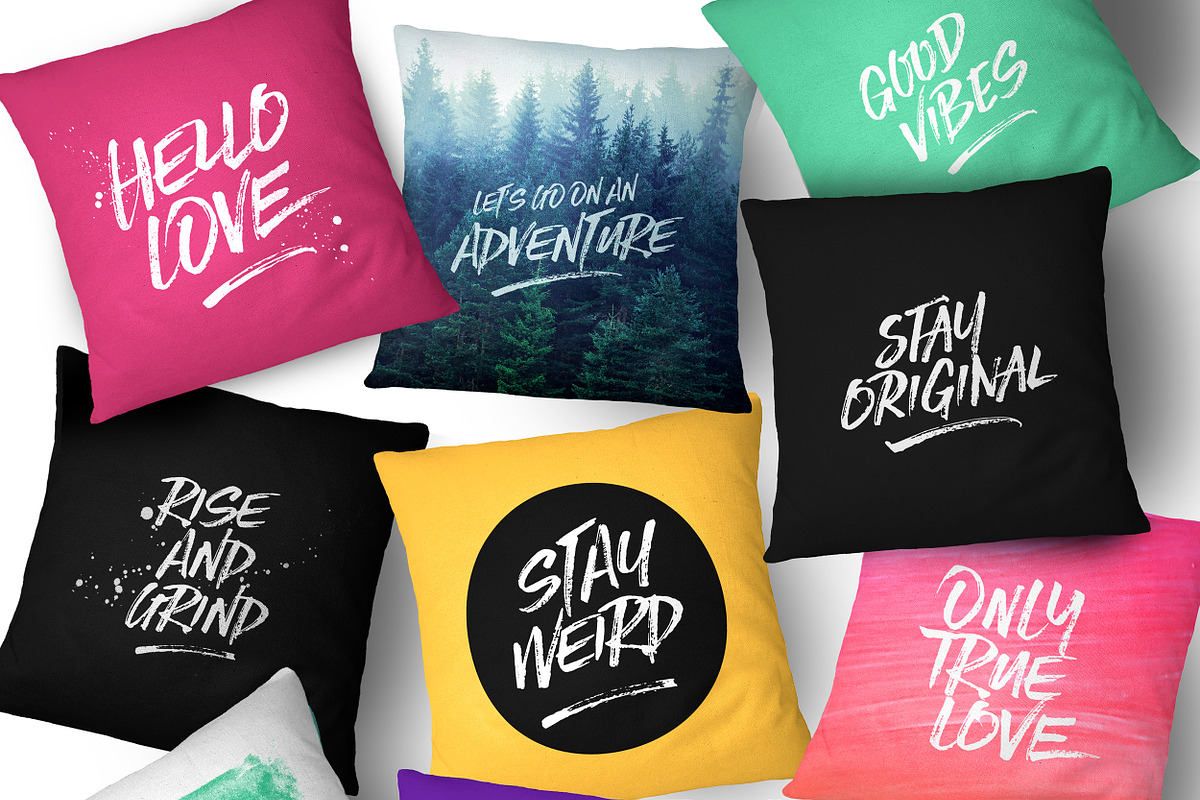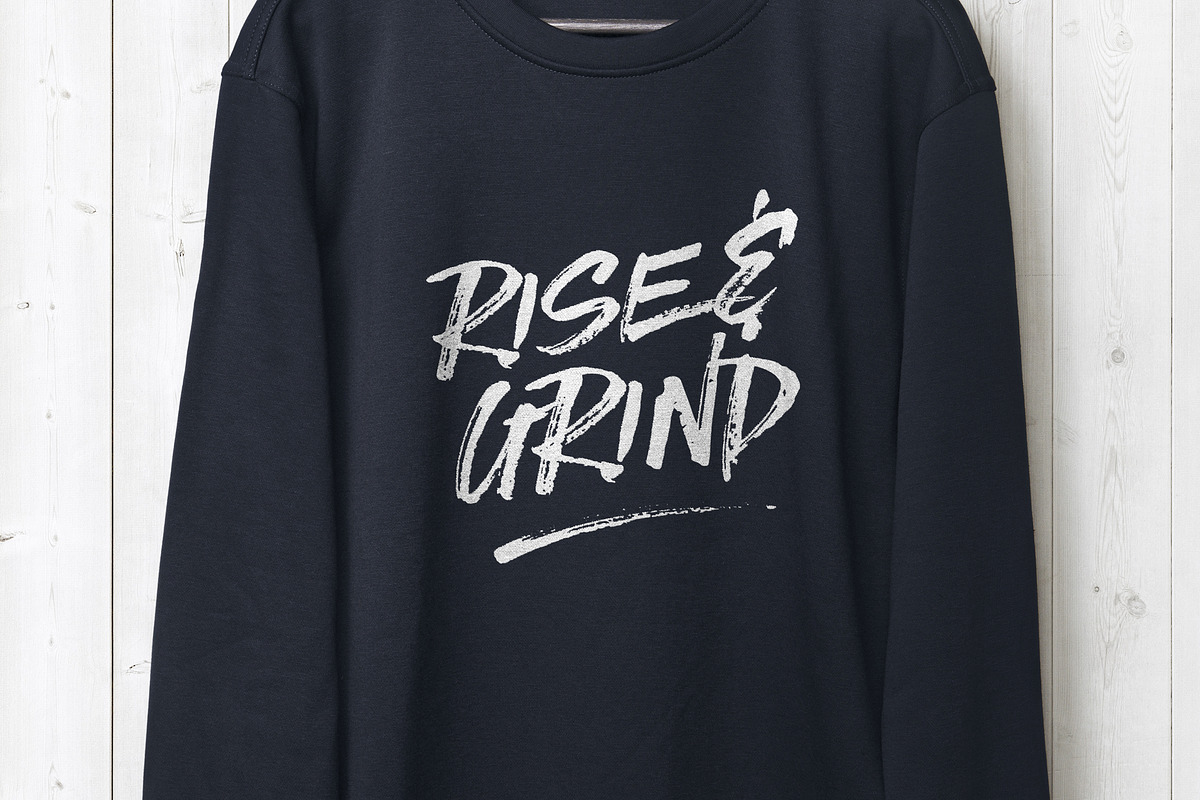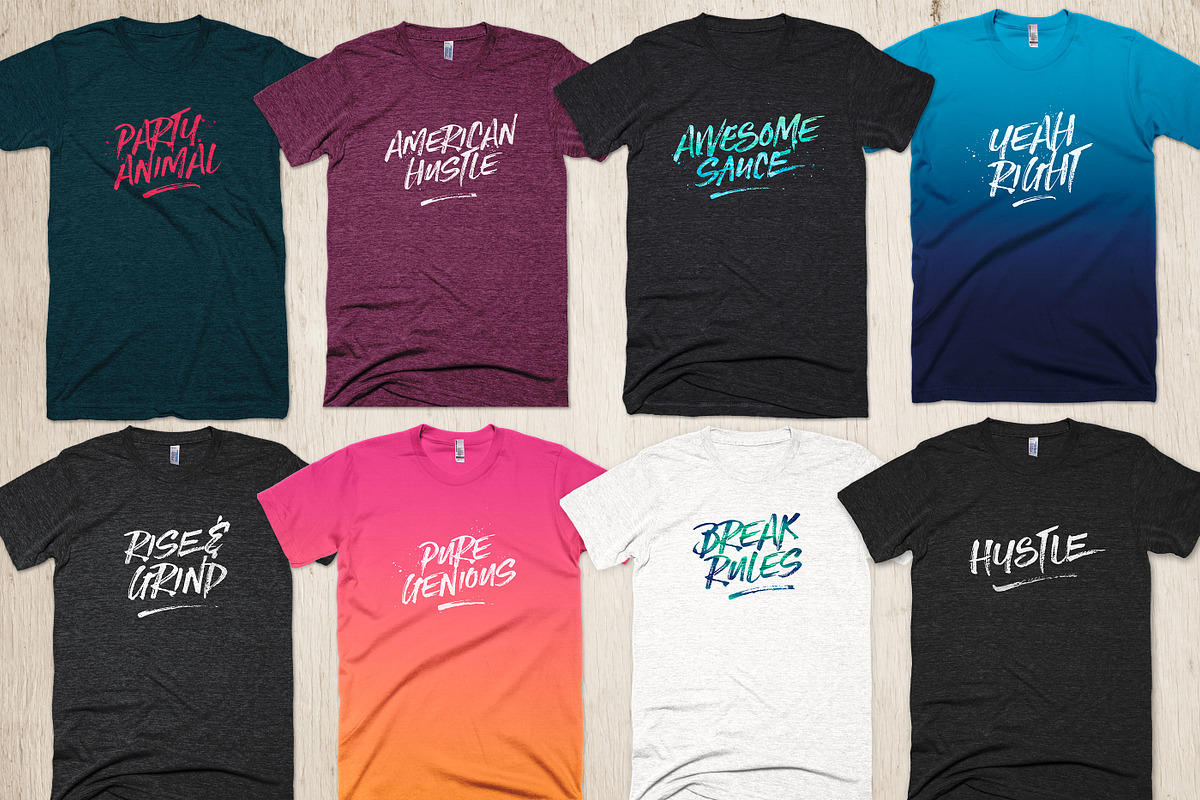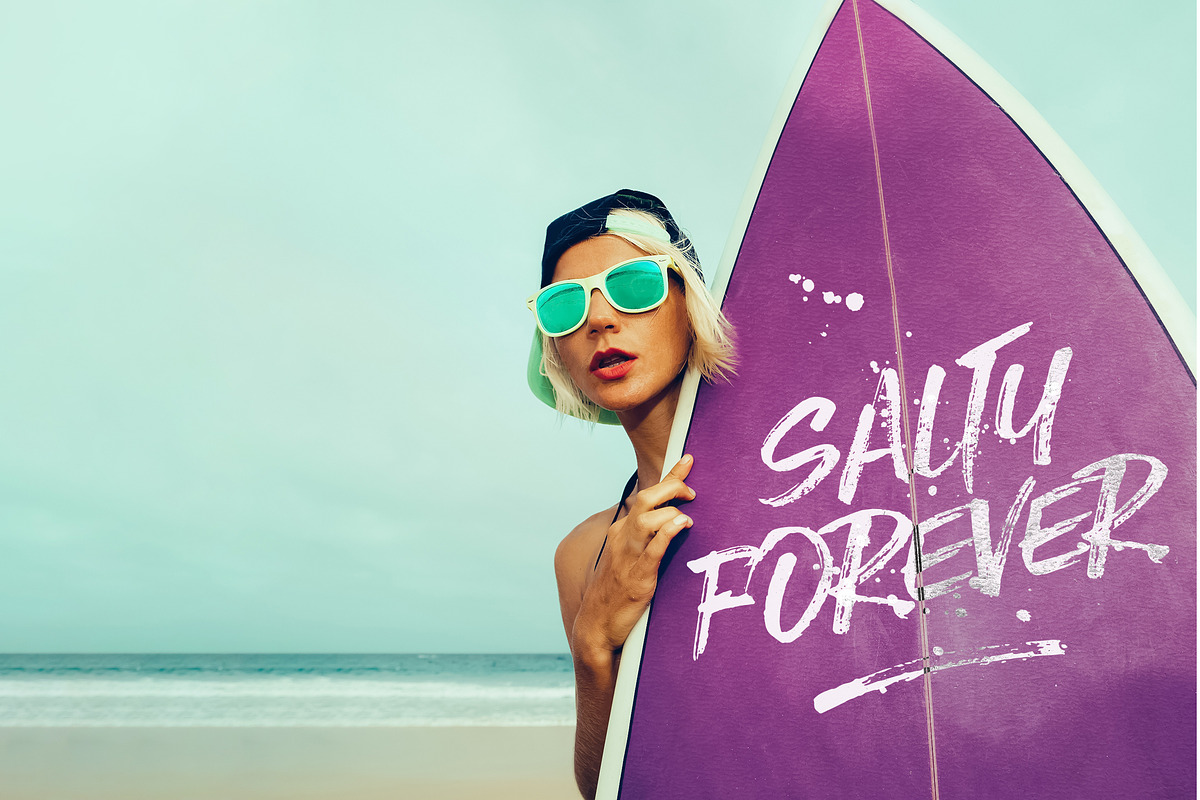
Stone Harbour Brush Font + Extras
Stone Harbour Brush Font + Extras by Nicky Laatz is a font selected for branding, posters, packaging, typography.
- :) SO HERE'S WHAT'S IN THE PACK: Stone Harbour font(Regular + Italic) Stone Harbour is an all uppercase font - the uppercase being the main
Why Stone Harbour Brush Font + Extras is worth a look
Stone Harbour Brush Font + Extras by Nicky Laatz fits naturally into Branding, posters, packaging, typography.